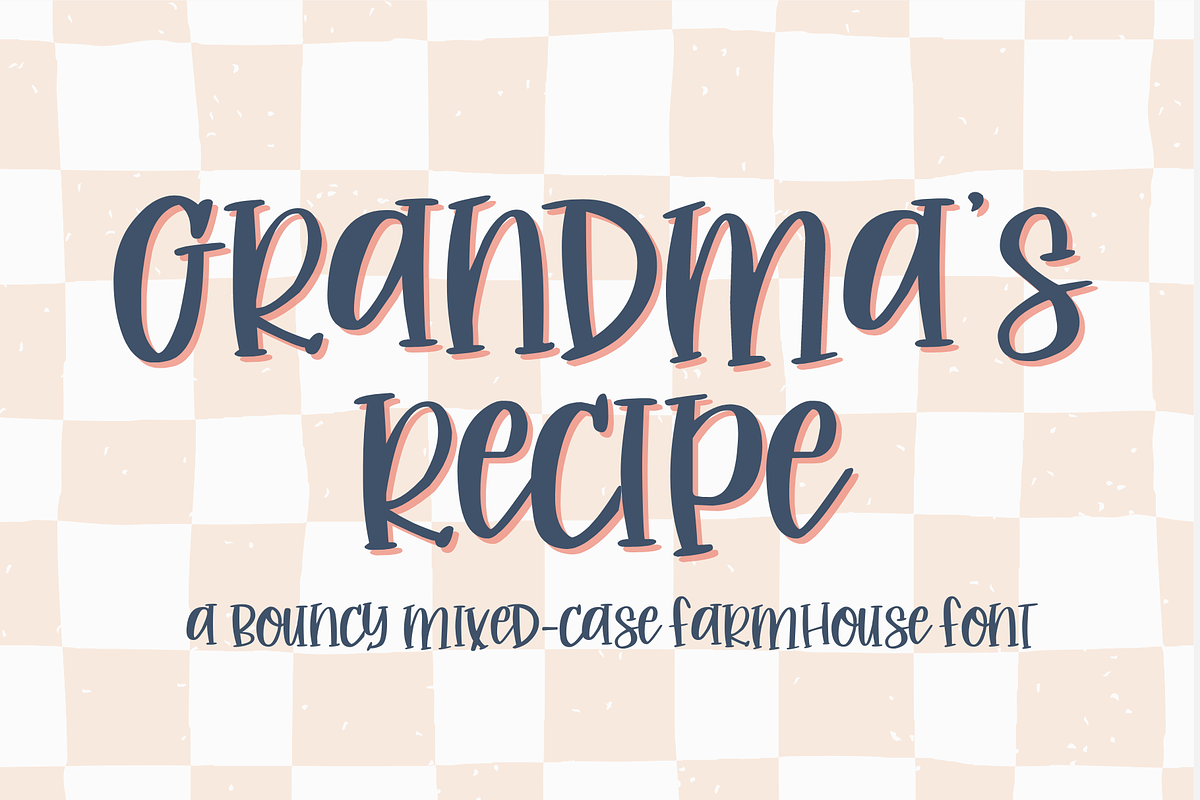
Grandma's Recipe, Handwritten Font Free Download
The Grandma's Recipe, Handwritten Font Free Download is a warm and charming handwritten typeface that brings a personal and nostalgic touch to your designs. Perfect for creating custom logos, invitations, recipe cards, branding materials, and social media graphics, this font adds a cozy, homemade feel to any project. Please note, for commercial use, a license must be purchased. You can download it for free for testing purposes.
With its friendly, flowing strokes and inviting design, the Grandma's Recipe, Handwritten Font Free Download is ideal for projects that need a heartfelt, personal touch. Whether you’re designing for a culinary brand, custom invitations, or creating personalized gifts, this font will give your designs a warm, approachable vibe.